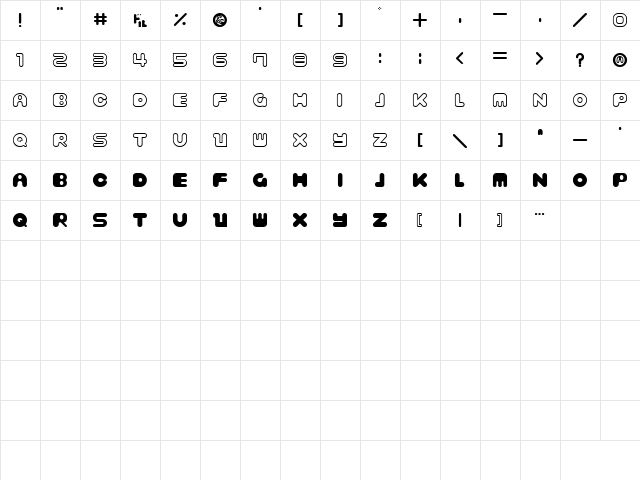
Bagel Old Regular
Design Context for Bagel Old Typeface
Bagel Old is a composed and adaptable typeface that performs quietly and consistently across a wide range of design contexts.
Pro Tip: Pair Bagel Old with a font of contrasting weight or personality to build a more expressive typographic hierarchy.